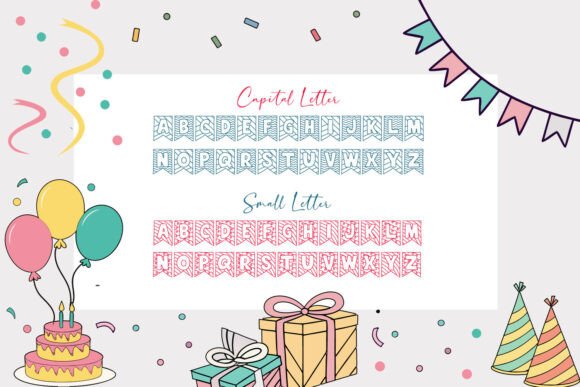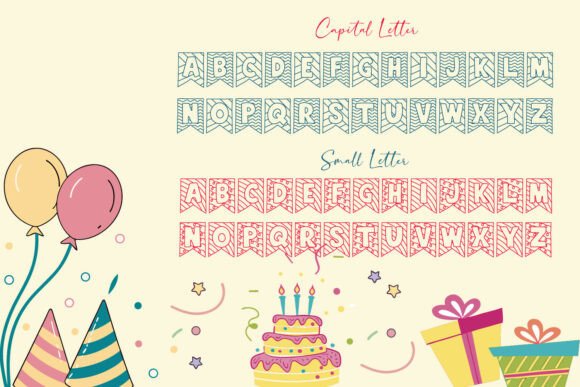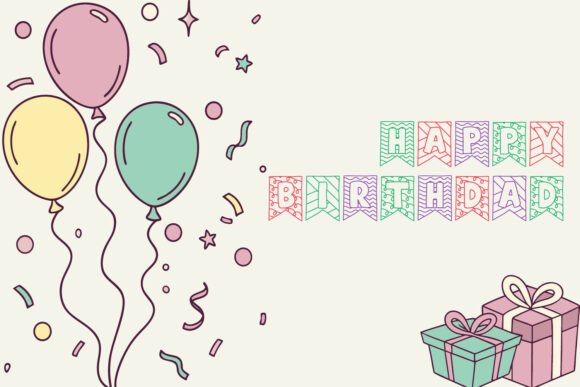
Introduction to Party Blocks Font
Party Blocks typeface is a playful and festive decorative font designed especially for birthday-themed projects.
With its fun blocky style , this typeface instantly adds a cheerful touch to your designs, making it ideal for parties, celebrations, and kid-friendly graphics Please note: this is not a colorful font – it is a standard single-color font that you can customize with any color of your choice in your design software.
Key Features of Party Blocks Font
Why Choose Party Blocks Font?
Party Blocks Font offers exceptional quality and versatility, making it a valuable addition to your design toolkit. Whether you’re creating for personal projects or commercial use, Party Blocks Font delivers professional results.